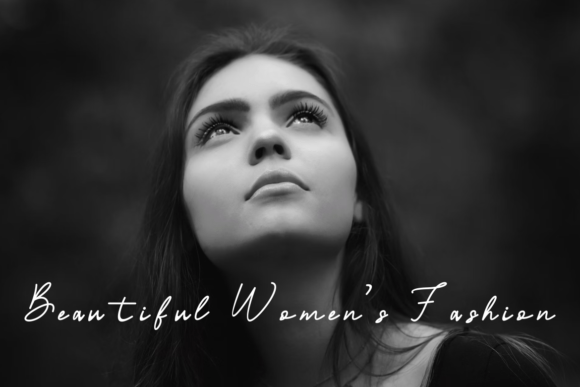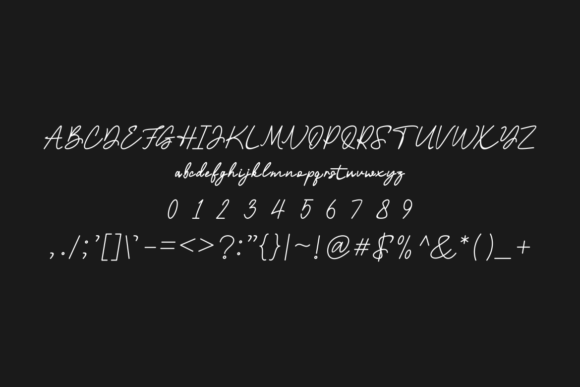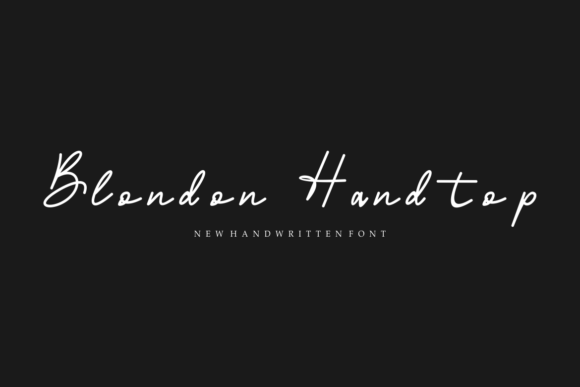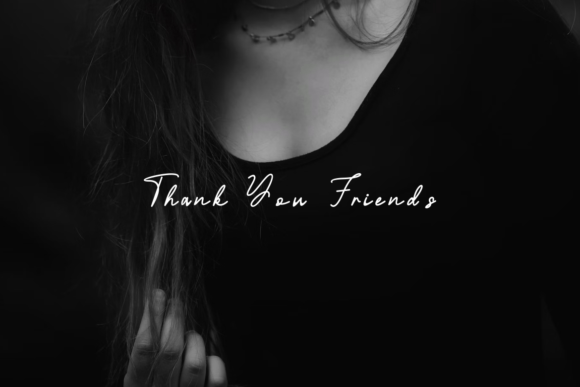
Introducing Blondon Handtop Font: Elevate Your Creative Projects with a Touch of Elegance
In the world of digital design, the right font can make all the difference. It’s not just about conveying your message; it’s about doing so with style and flair. This is where the Blondon Handtop font comes into play. This beautifully crafted font is designed to complement your digital and printed creative products, adding a touch of elegance and sophistication to any project.
Why Choose Blondon Handtop Font?
The Blondon Handtop font is versatile and highly adaptable, making it perfect for a wide range of applications. Whether you’re working on posters, social media posts, branding materials, or personal projects, this font is sure to enhance your design. Its unique characteristics and clean lines make it stand out, ensuring your work catches the eye.
For designers and crafters, finding the perfect font can be a daunting task. The Blondon Handtop font is a gem that offers the perfect blend of modernity and classic appeal. It’s designed to inspire creativity and bring a professional touch to your projects. With this font, you can:
• Create stunning posters that grab attention
• Enhance your social media posts with a professional look
• Develop a strong brand identity
• Add a personal touch to your projects
Key Features of Blondon Handtop Font
So, what makes the Blondon Handtop font so special? Here are some of its key features:
• Unique Design: The Blondon Handtop font boasts a unique design that sets it apart from more traditional fonts. Its handcrafted feel adds a personal touch to any project.
• Versatility: This font is incredibly versatile. It can be used for both digital and print projects, making it a valuable addition to your font library.
• High-Quality: This font is of high quality, ensuring it looks great in any size or application.
With the Blondon Handtop font, you’re not just choosing a font; you’re choosing a way to elevate your designs and make them truly unforgettable. So go ahead, explore the possibilities, and let your creativity shine.